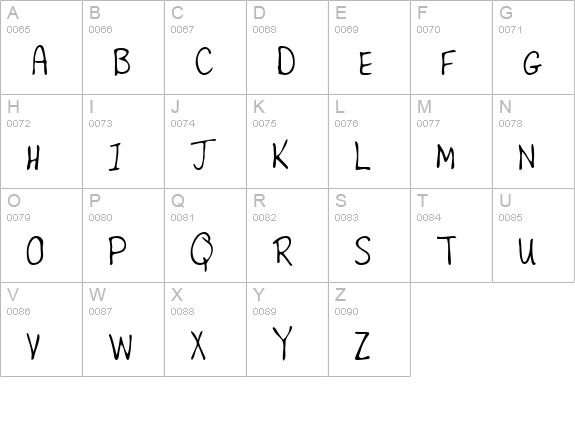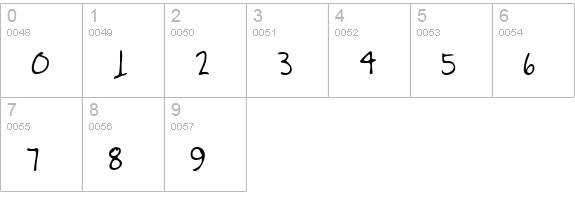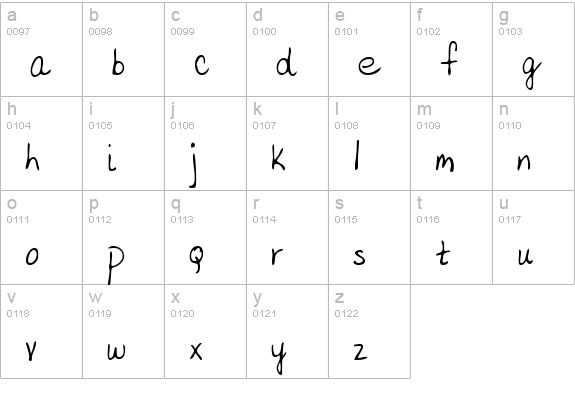
KarensHand Regular Font Details
KarensHand Regular is the standard, neutral variant in the KarensHand typeface family \xE2\x80\x94 well suited to general body text, paragraphs, and standard typographic work.
KarensHand Regular font is a beautifully crafted typeface that exudes elegance and sophistication. With its delicate brush strokes and fluid letterforms, this font is perfect for adding a touch of charm to any project. Whether you're designing invitations, creating logos, or crafting meaningful quotes, KarensHand Regular font is sure to captivate your audience. The best part? It's completely free! That's right, this stunning font is freely available to download at FontsMarket.com. You don't need to worry about breaking the bank to enhance your designs with this exquisite typeface. Simply head over to FontsMarket.com, and with just a few clicks, you'll have KarensHand Regular font at your fingertips. Not only does KarensHand Regular font offer a wide range of versatility, but it also provides exceptional readability. The carefully designed letterforms ensure that your message is conveyed effortlessly, whether it's in print or on screen. Its clean and well-balanced characters make it perfect for headlines, body text, and everything in between. Designed with impeccable attention to detail, KarensHand Regular font offers a timeless appeal that can elevate any design project. The subtle curves and graceful strokes add a touch of sophistication, making it ideal for a variety of creative endeavors. So why wait? Enhance your designs with the beauty and elegance of KarensHand Regular font today. Download it for free at FontsMarket.com and unlock a world of possibilities for your next project.